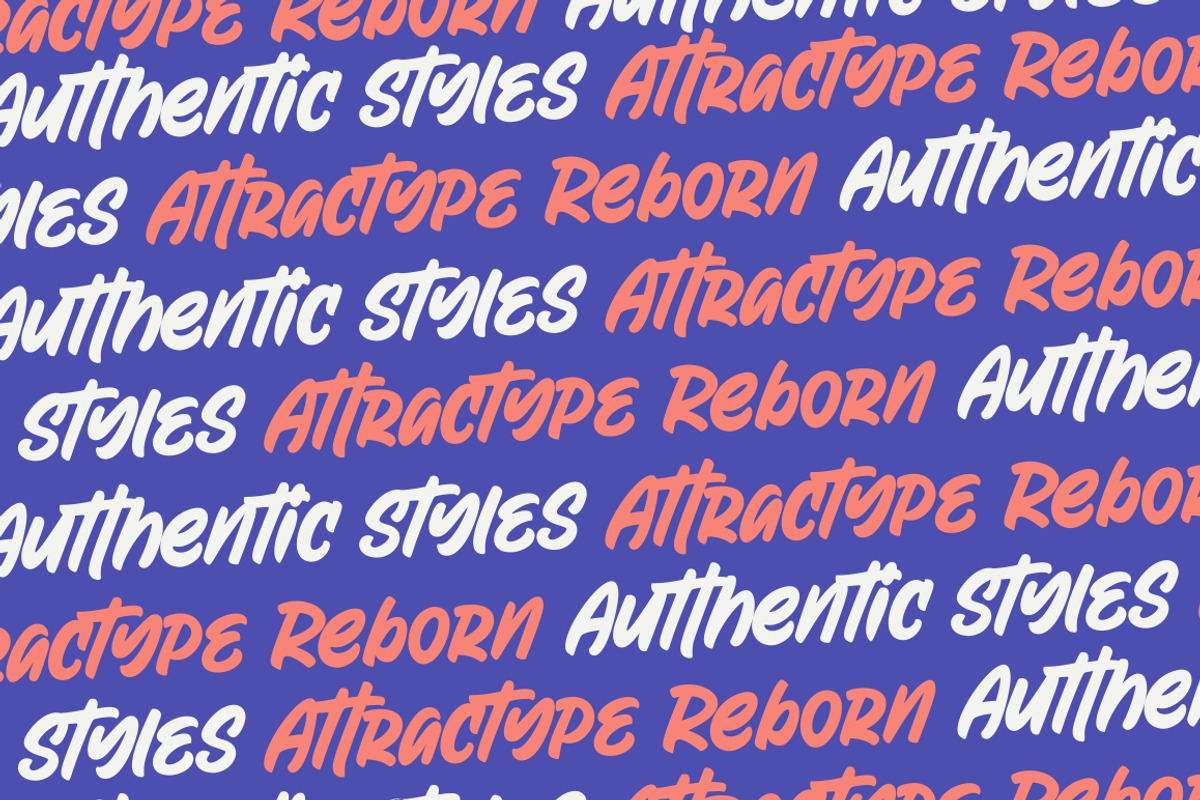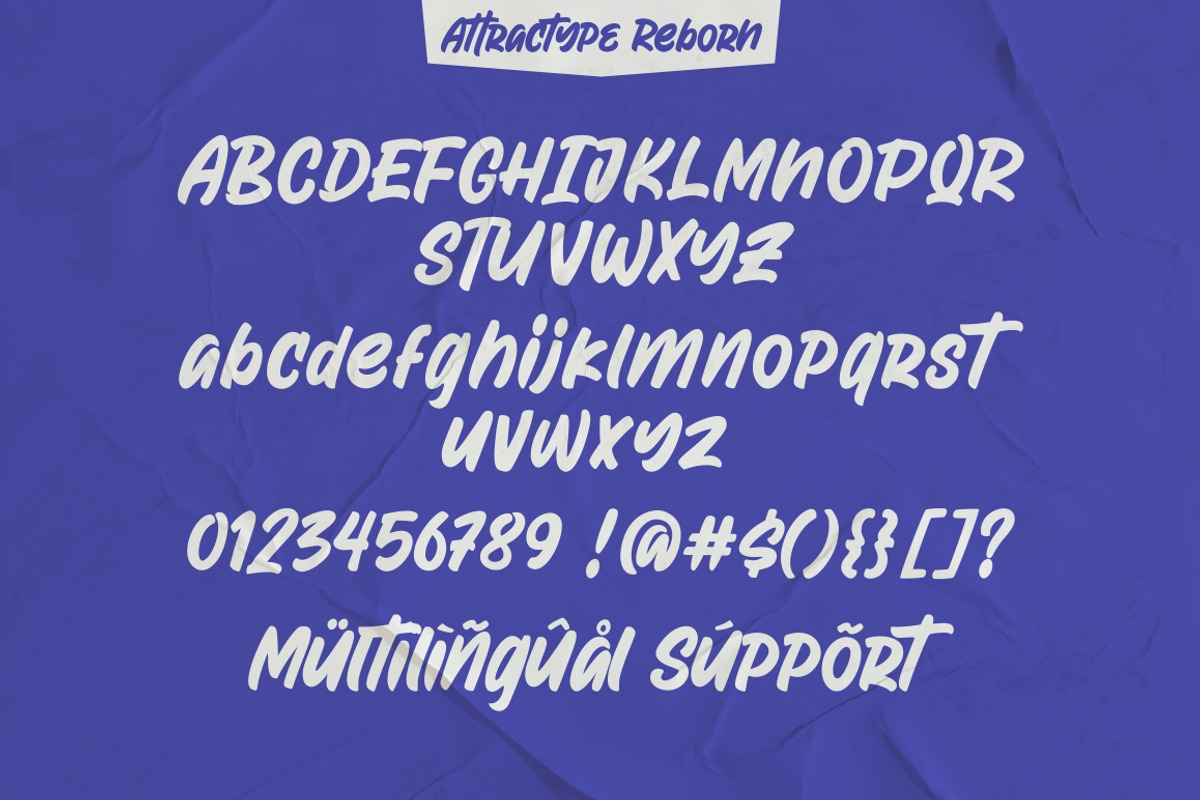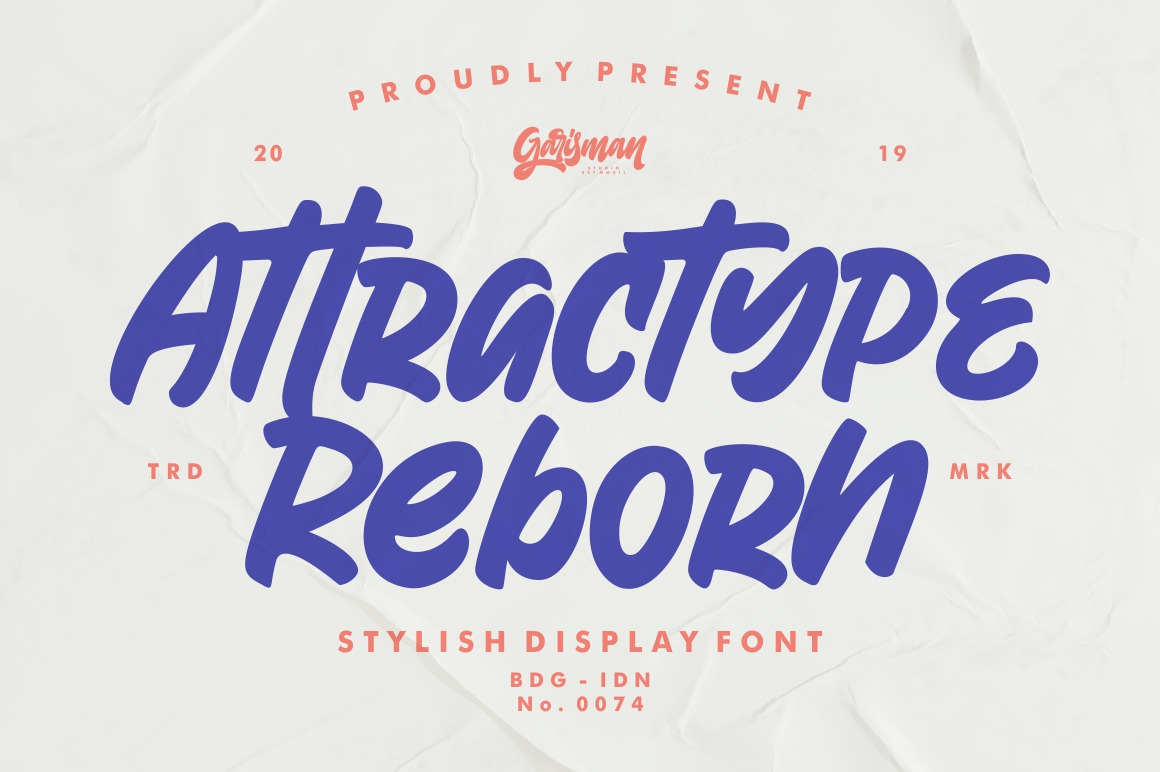
Attractype Reborn - Stylish Font
Introducing Attractype Reborn - Stylish Display Font
Attractype Reborn combines attractive curves with a fresh urban edge; delivering a stylish script which is guaranteed to add an eye-catching appeal to your logo designs, brand imagery, quotes, product packaging, merchandise & social media posts
- Uppercase & Lowercase letters
- Support for 17 Languages:: Afrikaans Albanian Catalan Danish Dutch English Estonian Finnish French German Icelandic Italian Norwegian Portuguese Spanisch Swedish Zulu
I haven't used this font yet, but chose it because it's got a peppy, easy-going character, which fits with the personality of our Ahh!Cappella chorus.